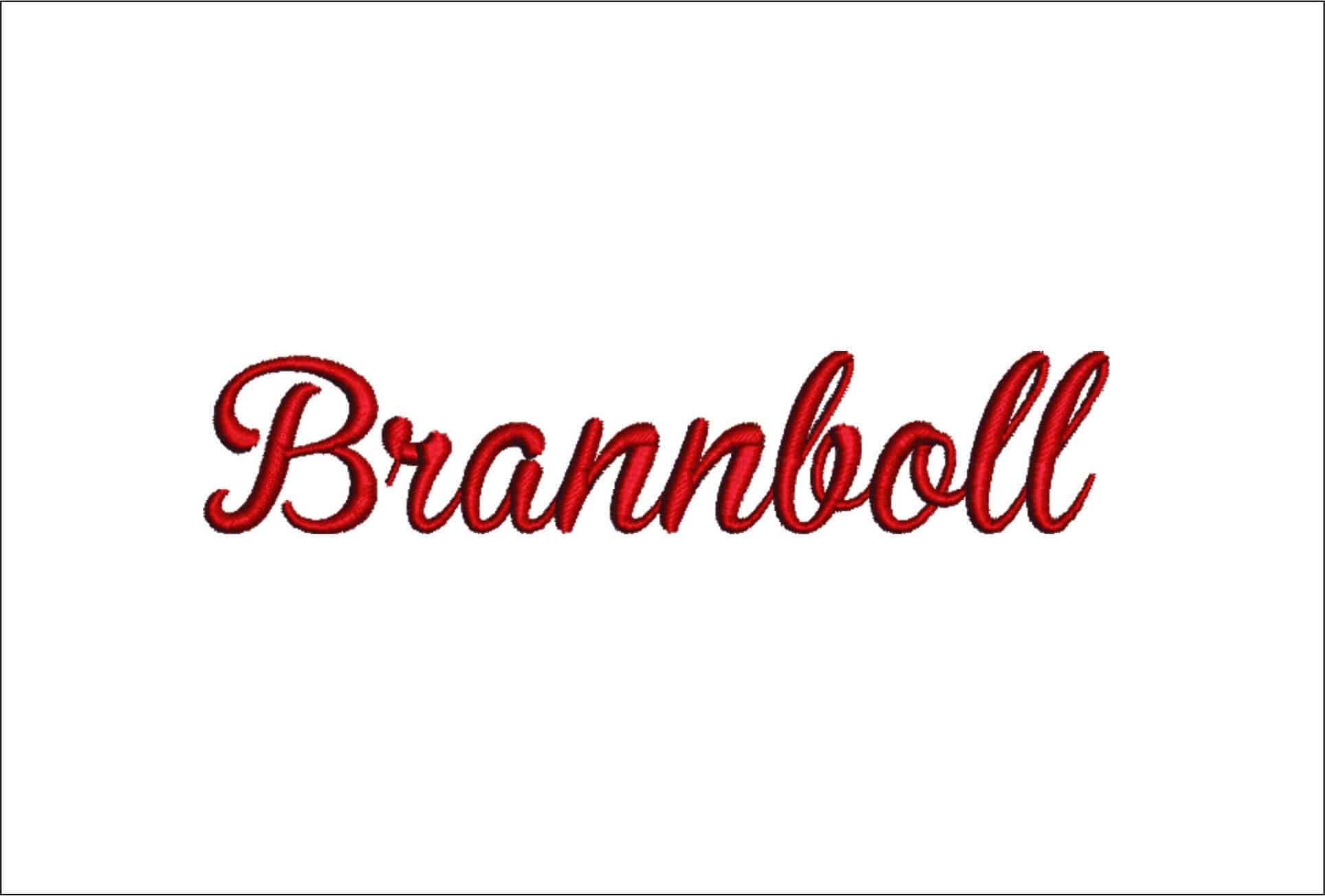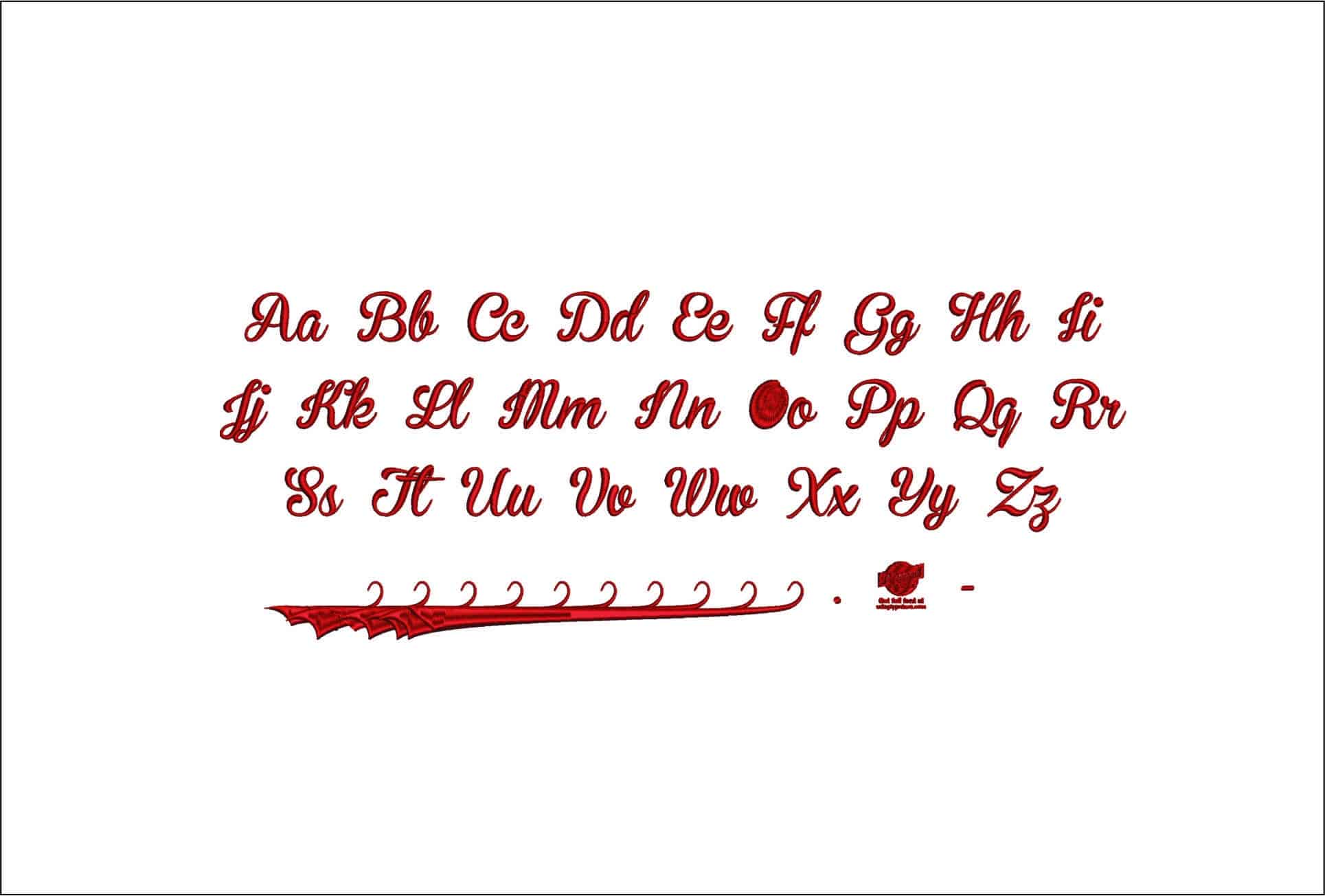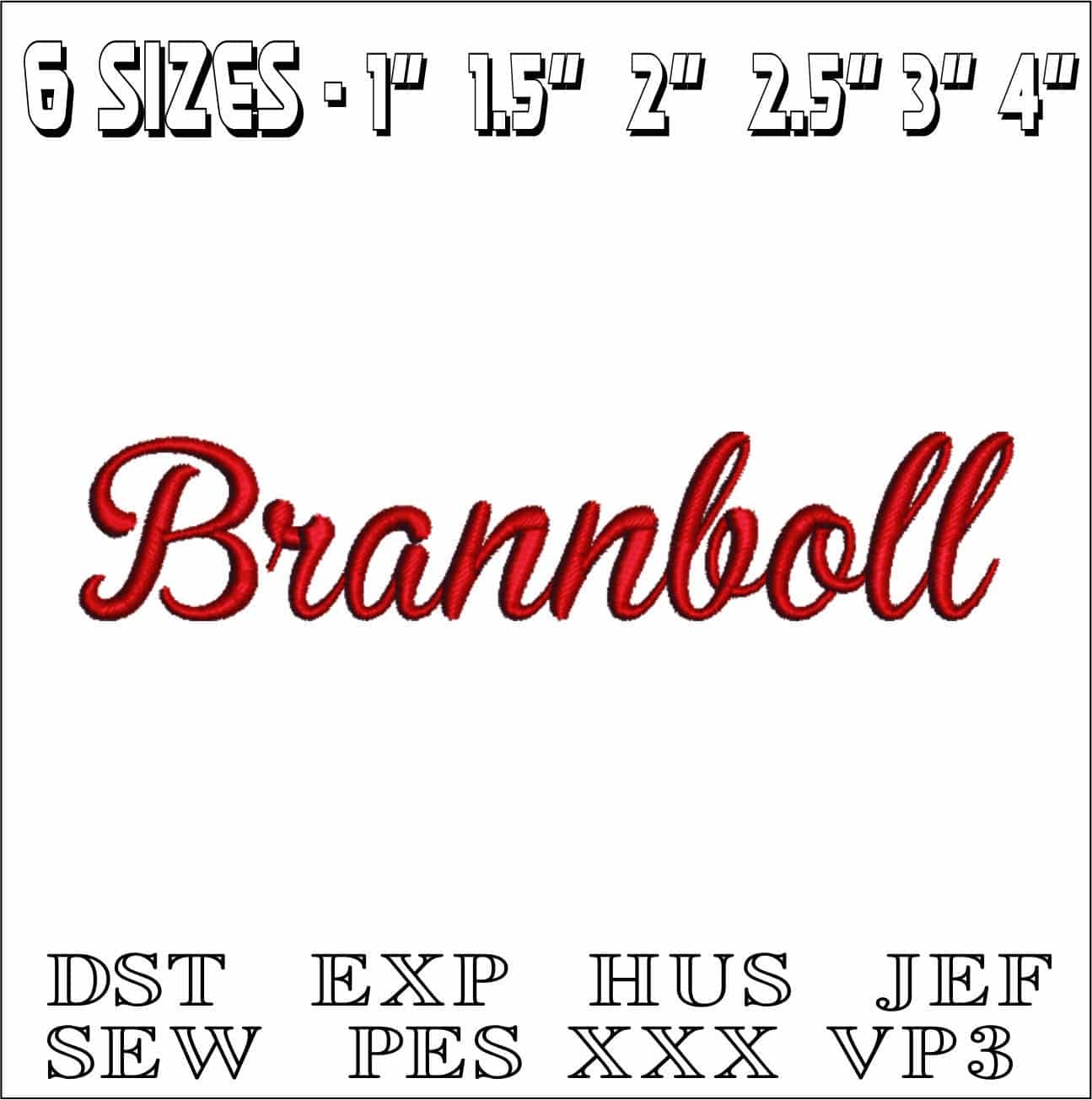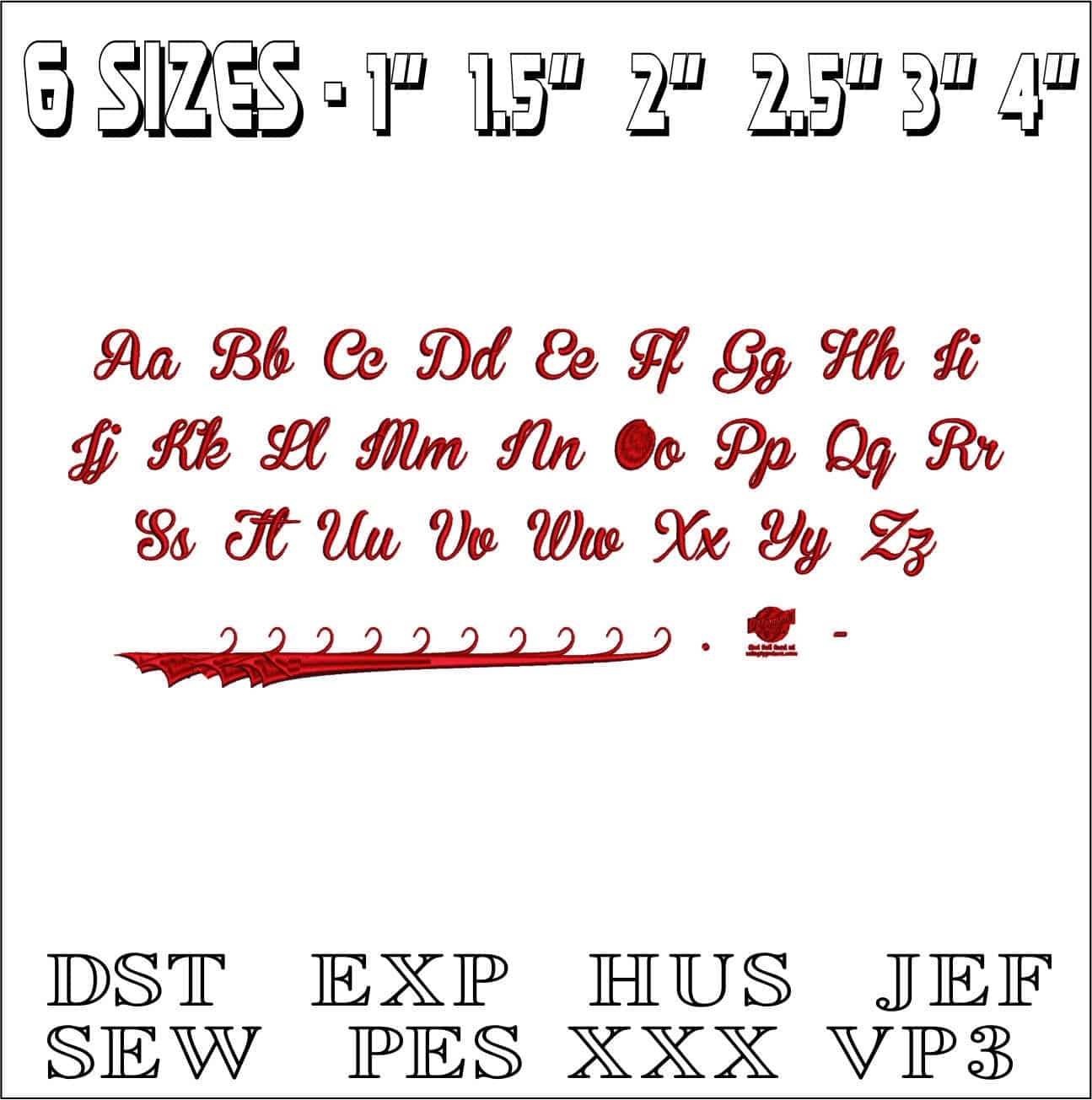
A flowing cursive embroidery alphabet with graceful capitals, neat lowercase letters and a flourish underline for polished personalisation.
Add flowing script to clothing and gifts with this Brannboll embroidery font set, a cursive alphabet with both uppercase and lowercase letters, plus a period, hyphen and a long decorative underline. The letterforms have a soft handwritten look without becoming fussy, making them a strong choice for anyone who wants names, initials or short words to feel personal and neatly finished. It suits makers who monogram children’s items, personalise accessories or want a more elegant alternative to block lettering.
This style works especially well on shirt pockets, sweatshirt fronts, baby blankets, tote bags, make-up pouches and robe cuffs, where the joined script can run smoothly across the fabric. The capitals have enough presence to stand alone for initials, while the lowercase letters keep full names readable rather than crowded. Use the underline to give a single name or short phrase a more custom, boutique-style finish.